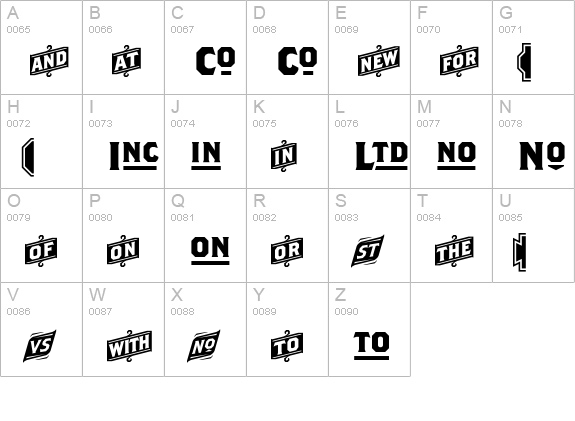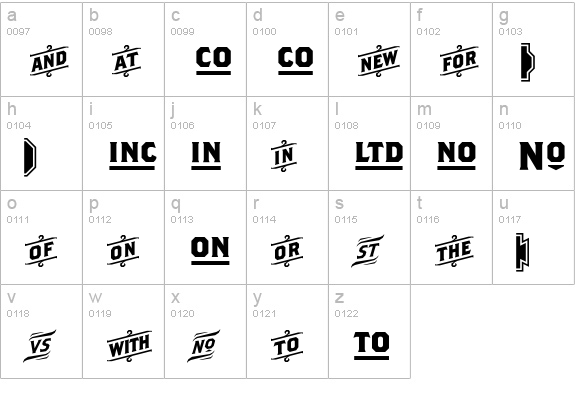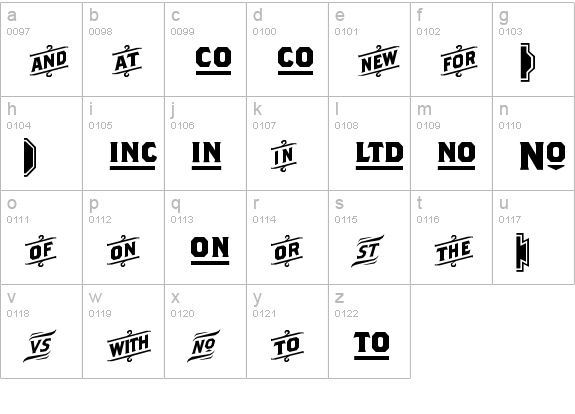
BrothersWordLogos Font Details
BrothersWordLogos font is a versatile and stylish typeface perfect for creating eye-catching designs. With its bold and modern aesthetic, this font is ideal for logos, headlines, and branding projects. The unique letterforms of BrothersWordLogos add a touch of sophistication and professionalism to any project. The best part? BrothersWordLogos is completely free to download at FontsMarket.com! This means you can easily access this high-quality font without breaking the bank. Whether you're a designer looking to add a new font to your collection or a business owner in need of a fresh look for your branding, BrothersWordLogos is the perfect choice. Download it today and elevate your designs with this stunning and versatile font.